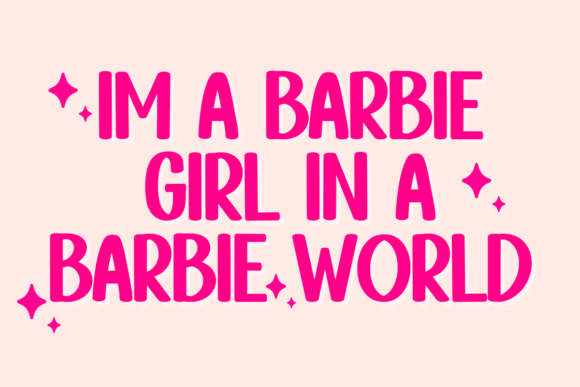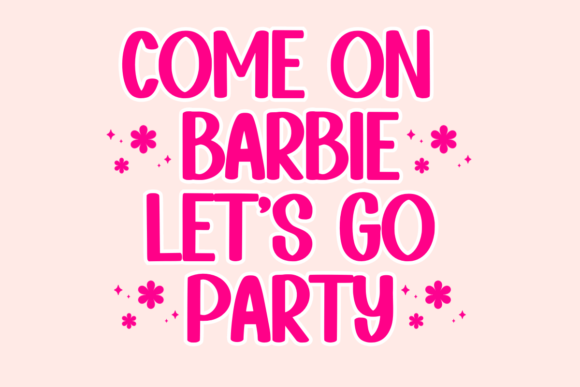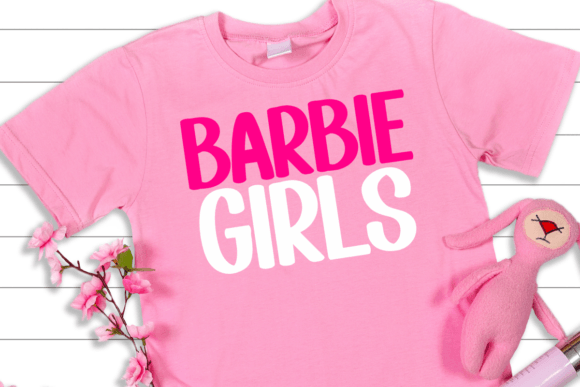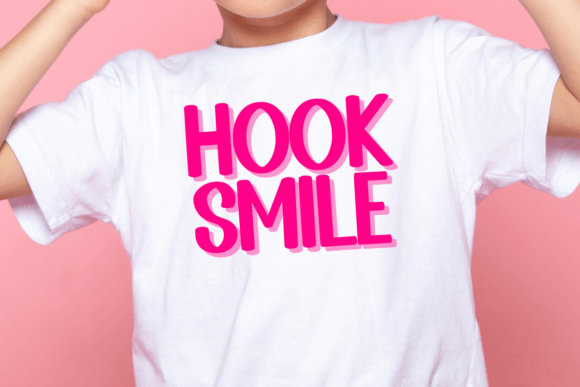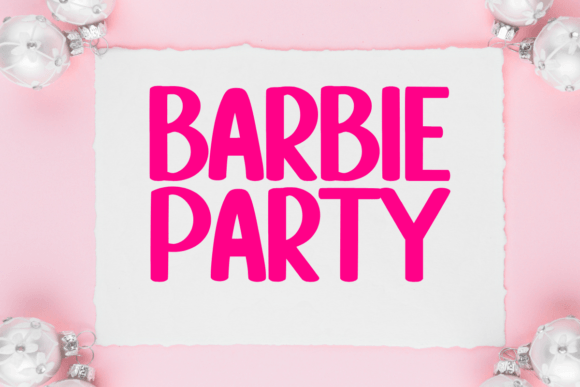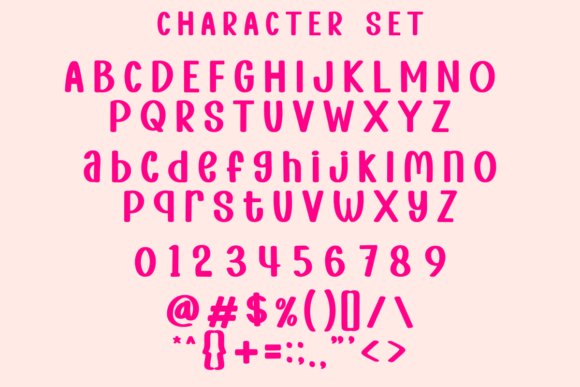
Introducing Barbie Berry Font: The Ultimate Display Font for Creative Projects
Are you tired of using the same old fonts for your creative projects? Look no further than the Barbie Berry Font, a fun and quirky display font that’s sure to elevate your designs to the next level. With its unique blend of playfulness and sophistication, this font is perfect for designers, crafters, and anyone looking to add a touch of personality to their work.
The Versatility of Barbie Berry Font
One of the standout features of the Barbie Berry Font is its incredible versatility. No matter the topic or theme of your project, this font is sure to be an asset to your font library. Whether you’re working on a children’s book, a fashion brand, or a DIY craft project, Barbie Berry Font is the perfect choice. Its fun and quirky vibe makes it ideal for projects that require a playful touch, while its clean and crisp lines ensure that it remains legible and professional.
Key Features of Barbie Berry Font
- Unique and Quirky Design: The Barbie Berry Font features a one-of-a-kind design that’s sure to turn heads. Its playful curves and lines make it perfect for adding a touch of whimsy to your projects.
- Highly Legible: Despite its playful design, the Barbie Berry Font is highly legible, making it perfect for use in a variety of applications, from headlines to body copy.
- Multilingual Support: The Barbie Berry Font supports multiple languages, making it a great choice for designers and crafters who work with international clients or want to create projects that appeal to a global audience.
How to Use Barbie Berry Font in Your Projects
The Barbie Berry Font is incredibly easy to use and can be applied to a wide range of projects, including:
- Graphic Design: Use the Barbie Berry Font to add a touch of personality to your graphic designs, from brochures to business cards.
- Crafting: Add a playful touch to your DIY craft projects, such as handmade cards, scrapbooking, and other paper crafts.
- Web Design: Use the Barbie Berry Font to create eye-catching headlines and titles for your website or blog.
- Social Media: Make your social media posts stand out with the Barbie Berry Font, perfect for creating engaging and shareable content.
Tips and Tricks for Getting the Most Out of Barbie Berry Font
To get the most out of the Barbie Berry Font, try the following tips and tricks:
- Experiment with Different Sizes: The Barbie Berry Font looks great in a variety of sizes, from large headlines to smaller body copy.
- Pair with Other Fonts: Try pairing the Barbie Berry Font with other fonts to create a unique and visually appealing combination.
- Use in Combination with Images: The Barbie Berry Font looks great when used in combination with images, try using it to add a touch of personality to your captions and titles.
In conclusion, the Barbie Berry Font is a fun and quirky display font that’s sure to elevate your creative projects to the next level. With its unique blend of playfulness and sophistication, this font is perfect for designers, crafters, and anyone looking to add a touch of personality to their work. Whether you’re working on a children’s book, a fashion brand, or a DIY craft project, the Barbie Berry Font is the perfect choice. So why wait, download the Barbie Berry Font today and start adding a touch of whimsy to your designs!